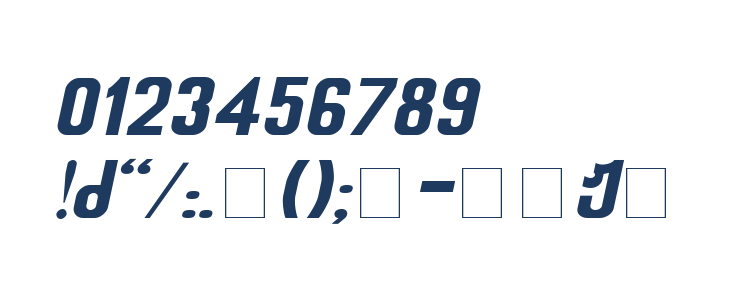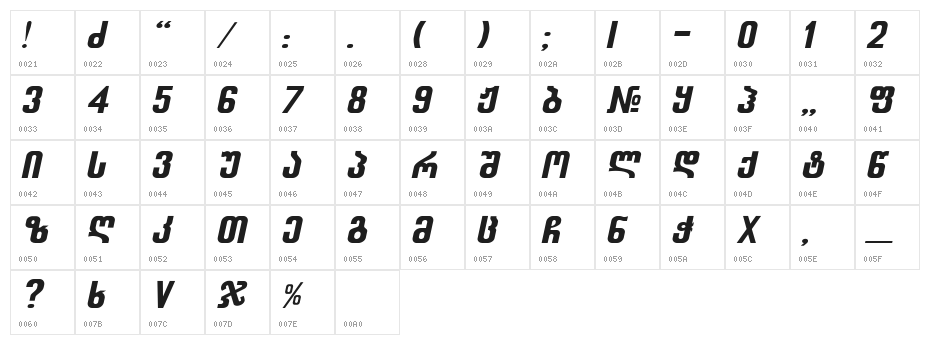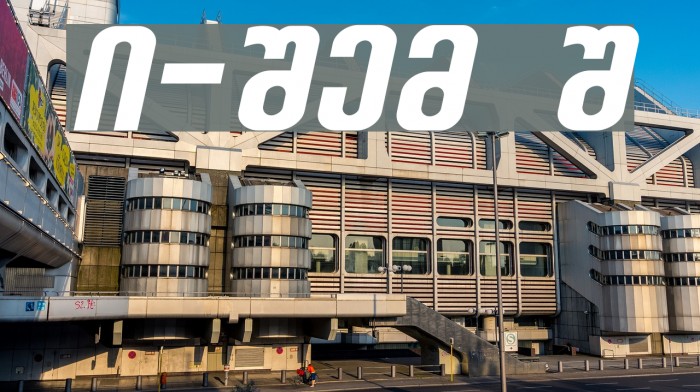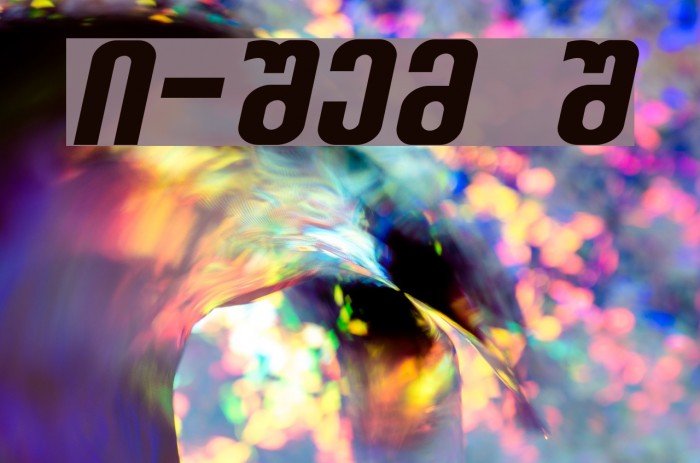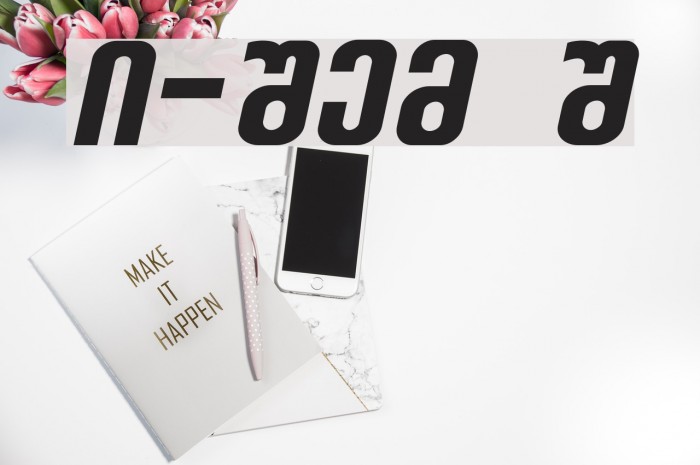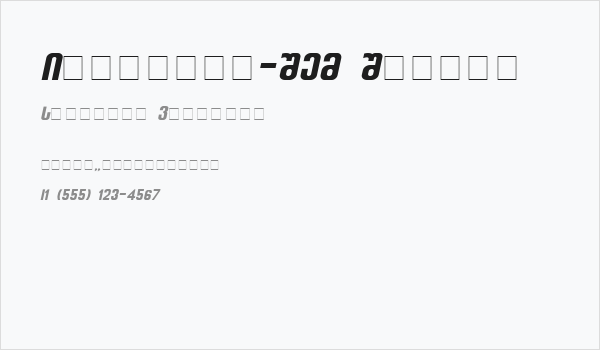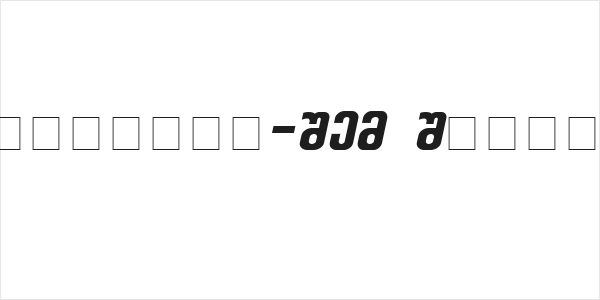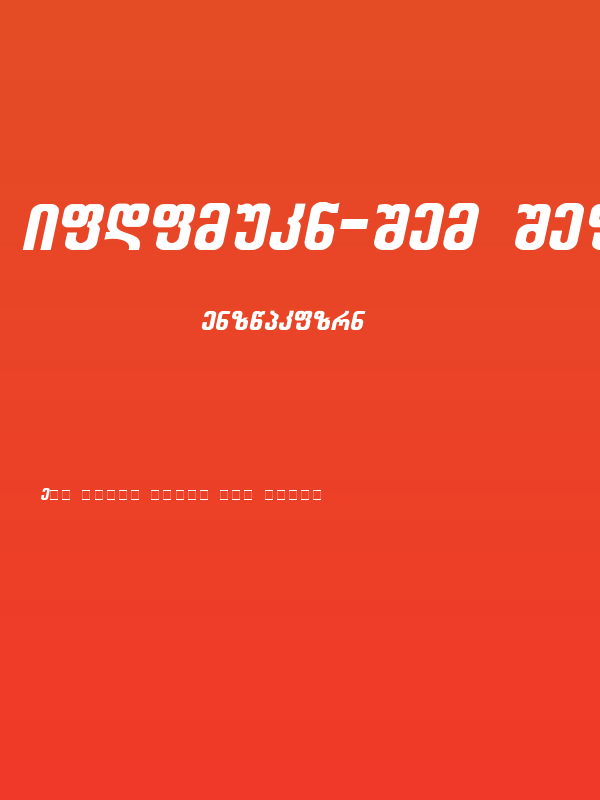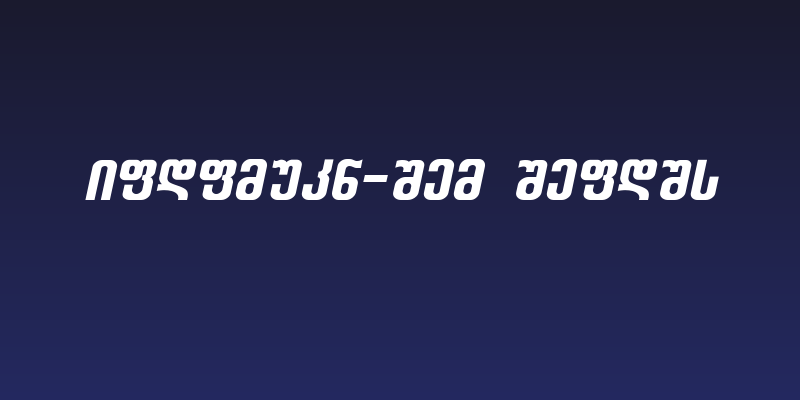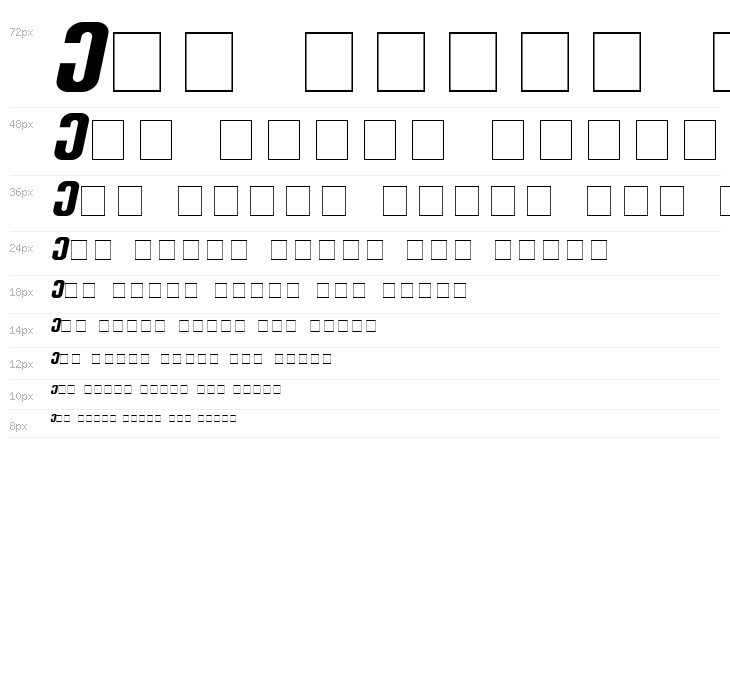
Balavery-ITV Italic Font
Balavery-ITV Italic Description
This font exhibits a bold and dynamic style with a strong italic slant, giving it a sense of motion and energy. The characters are robust and slightly condensed, enhancing their impactful appearance. The strokes are consistent in weight, providing a uniform look across all characters. The numbers and punctuation marks maintain the same boldness and slant, ensuring cohesion throughout the typeface. This font is well-suited for attention-grabbing headlines and titles, where a sense of urgency or movement is desired.
Proposed ProjectsIdeal for sports branding, dynamic posters, and impactful headlines.